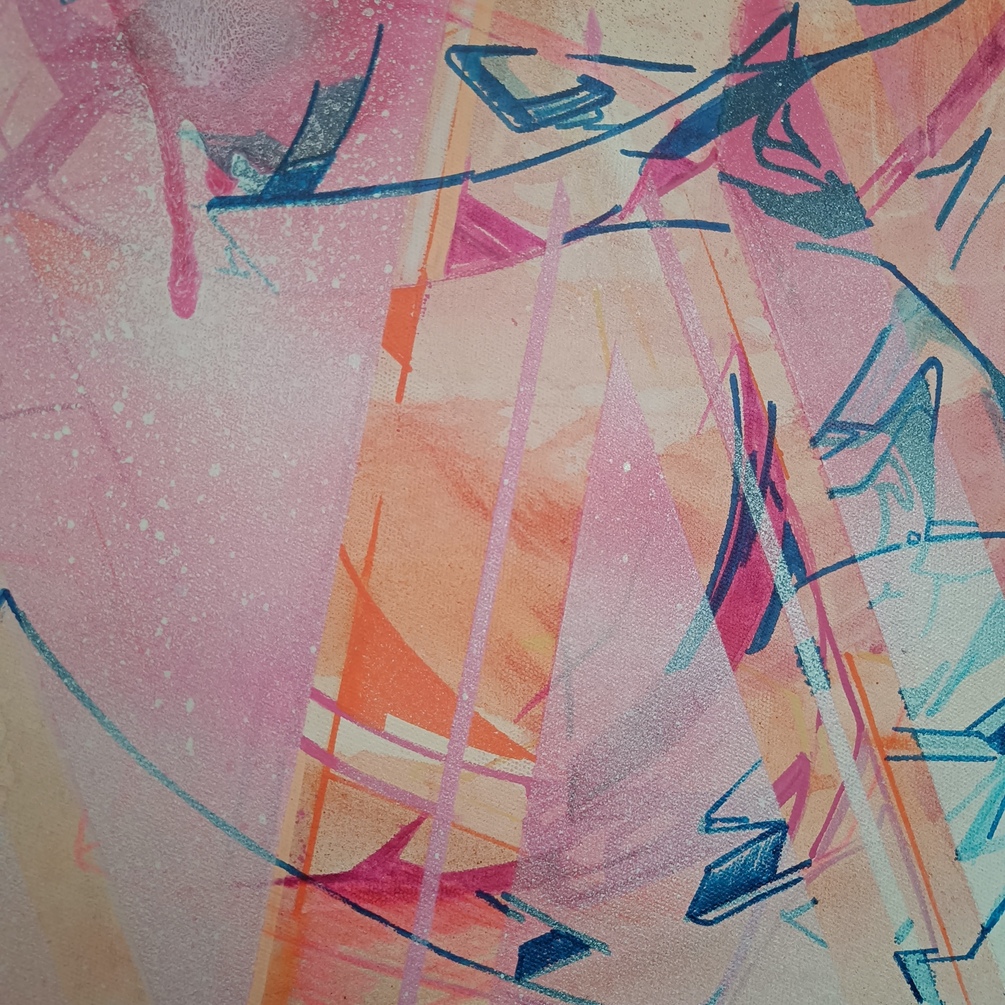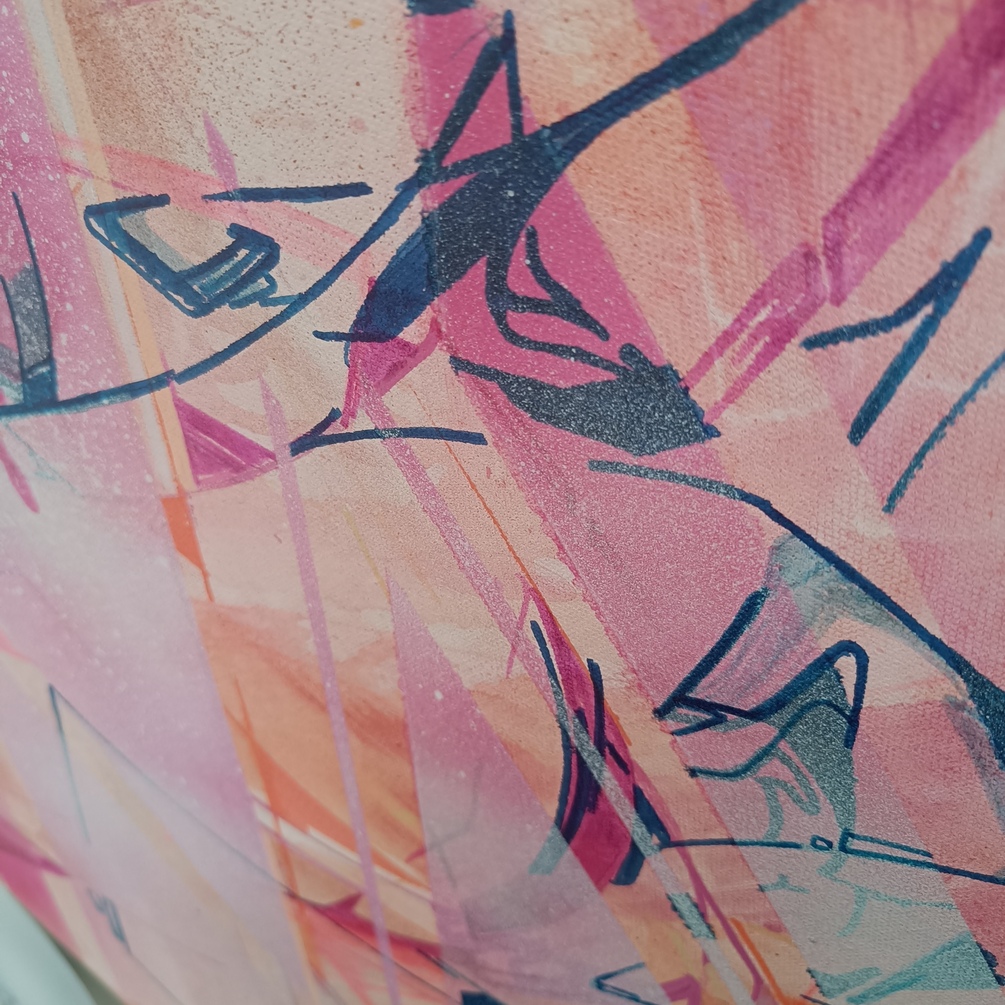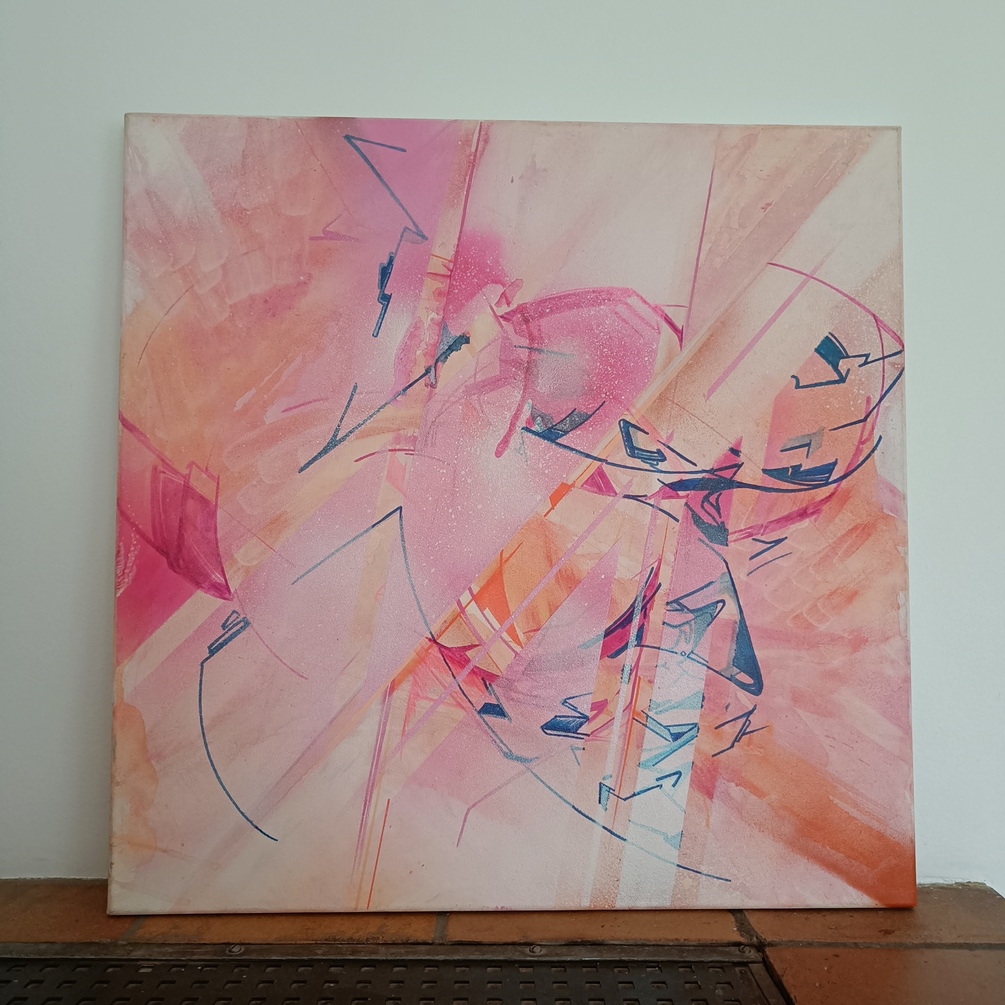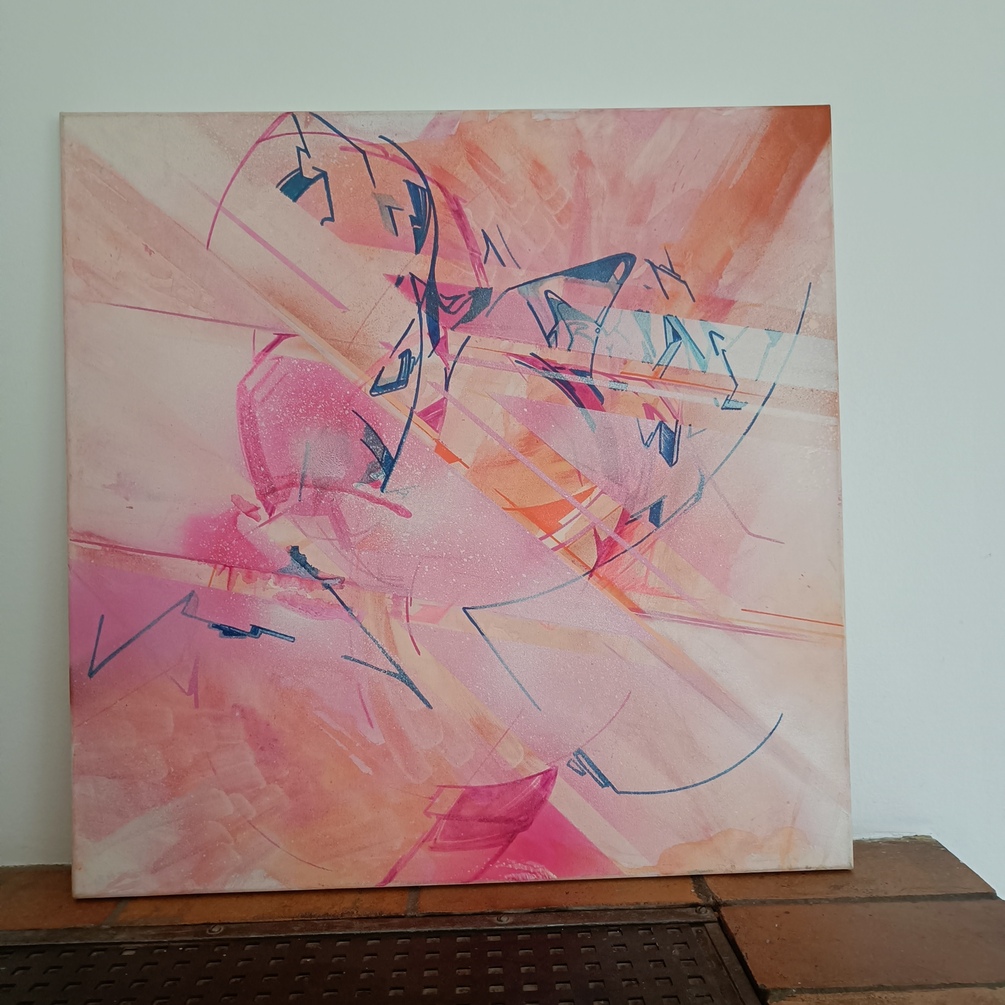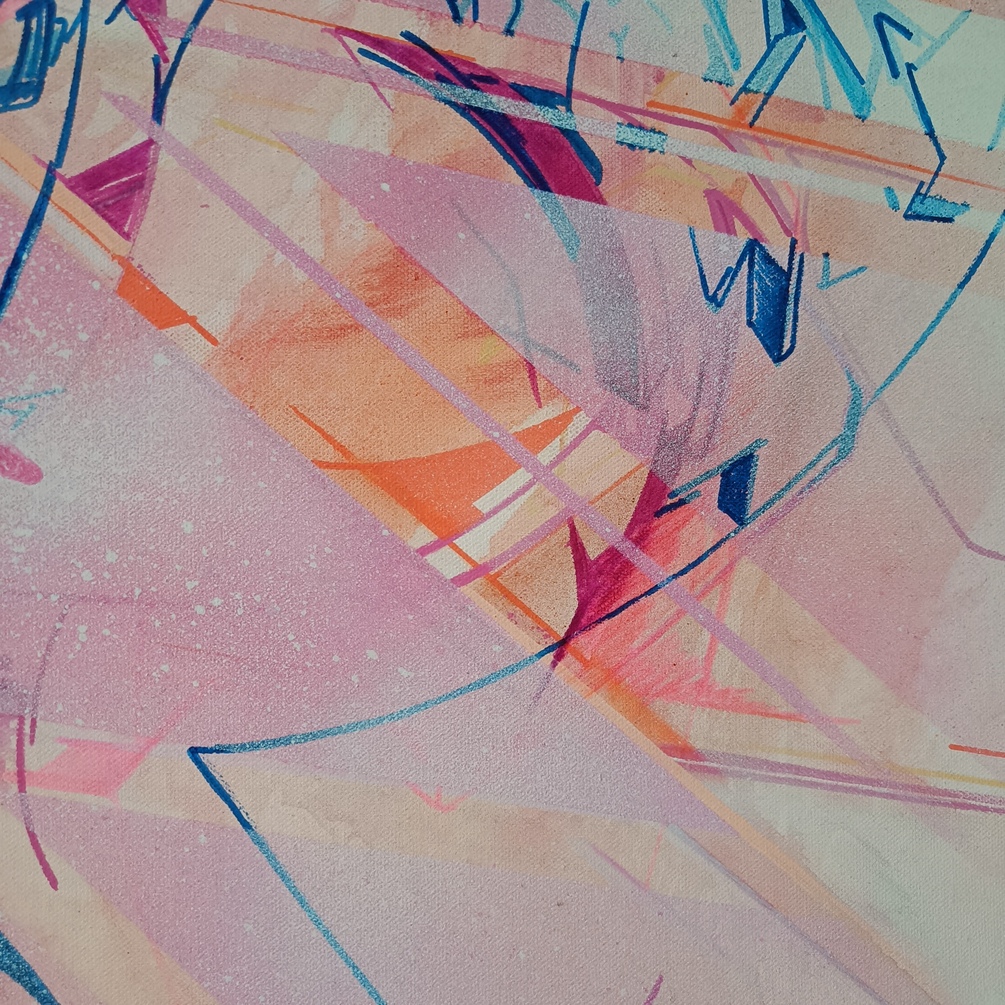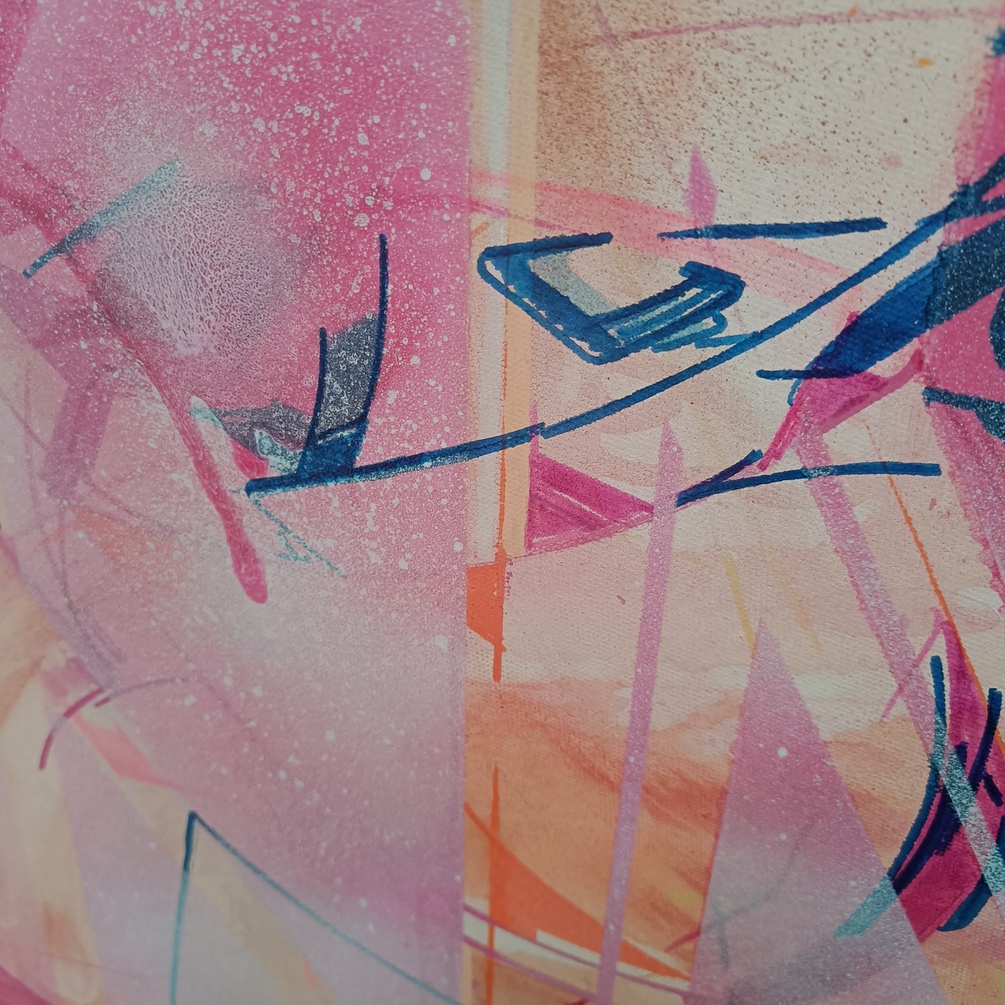
Pinkie´s Dream - Se det ske / 60x60cm 2024
Pinkie´s Dream - Se det ske
Passing by, buying stuff you dont need for money you dont have.
It´s just a phase, like mooncycles and tides, changing by observing
Why isn´t there a signature in the left corner?
The works has been produced from an open perspective, where there is no pre-defined angle from which the work should be viewed.
The work is produced only with spraycans - no initial sketch, and came into being with carefulness & control.
I choose to let the observer decide from themselves from which angle, where the lines, the dynamics, the contrasts conjure up images or narratives within the artwork.
Its an one-off, so its not to be reproduced or re-done.